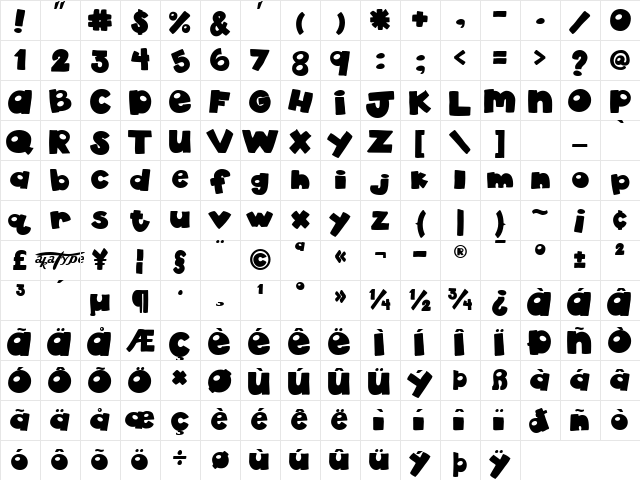
Complete akaDylan Plain Regular glyph index. Displaying only characters natively supported by akaDylan Plain Regular font.
akaDylan Plain is a composed and adaptable typeface that performs quietly and consistently across a wide range of design contexts.
Who designed the akaDylan Plain Regular font?
This font was published by James Milligan. Check the technical specs section for copyright and designer details.